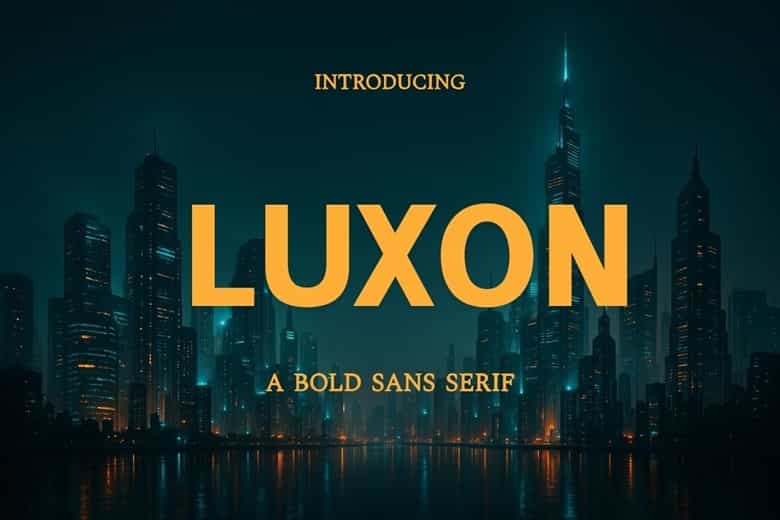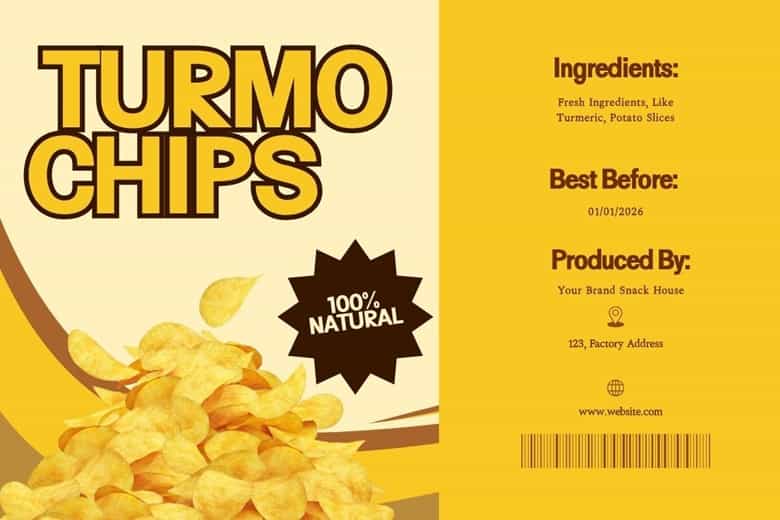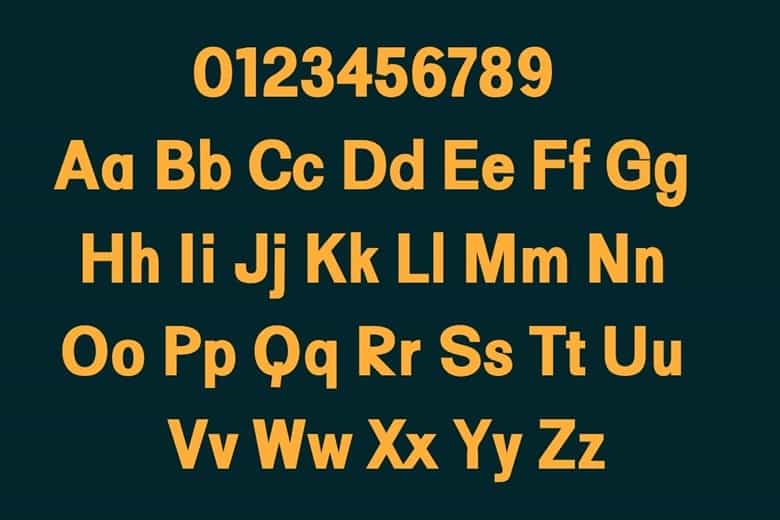
Luxon is an aggressive sans serif typeface with a contemporary other side. It comes out bold as its strong lines and even forms are apt in headline and poster design, branding, and packaging. Luxon is sharp and clear with a striking impact. This font is strong and clear, no matter the project, whether on the screen or print media.